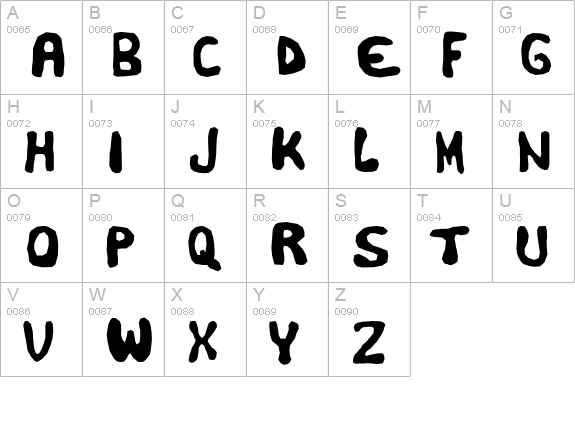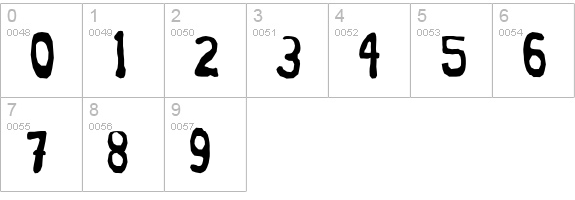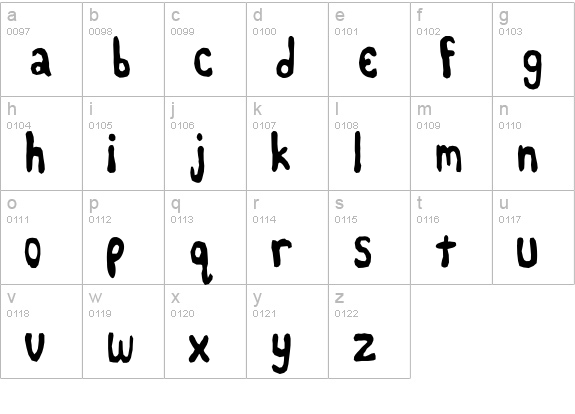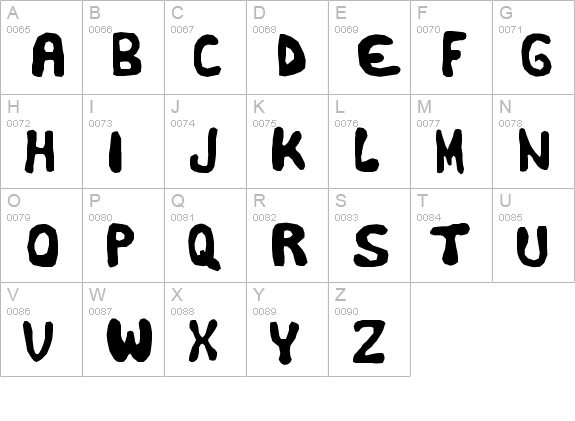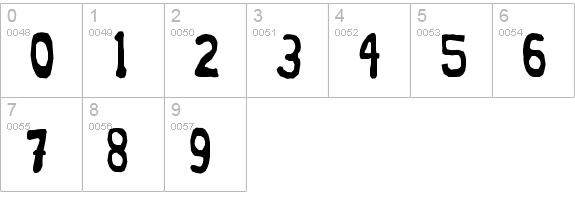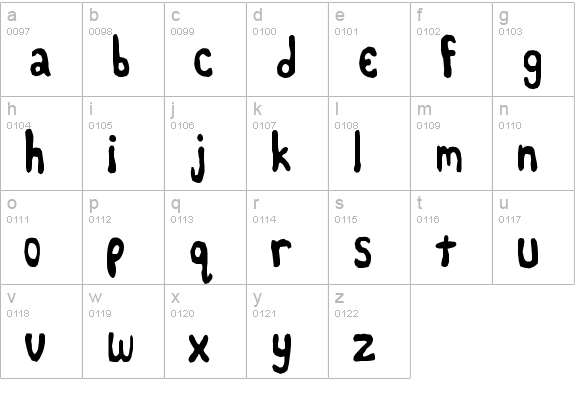
Messy Annie normal is the standard, neutral variant in the Messy typeface family \xE2\x80\x94 well suited to general body text, paragraphs, and standard typographic work.
Messy Annie is a charming and playful font that exudes a sense of whimsy and creativity. With its slightly messy appearance, this font adds a unique touch to any project, making it stand out from the crowd. Perfect for adding a handcrafted feel to invitations, posters, logos, and more, Messy Annie is a versatile typeface that can be used for a variety of design purposes. Best of all, Messy Annie is available for free download at FontsMarket.com. This means that you can easily access this delightful font without any cost, allowing you to unleash your creativity without breaking the bank. Whether you're a seasoned designer or just starting out, Messy Annie is a great addition to your font collection. So why wait? Download Messy Annie today and add a touch of fun to your next project!